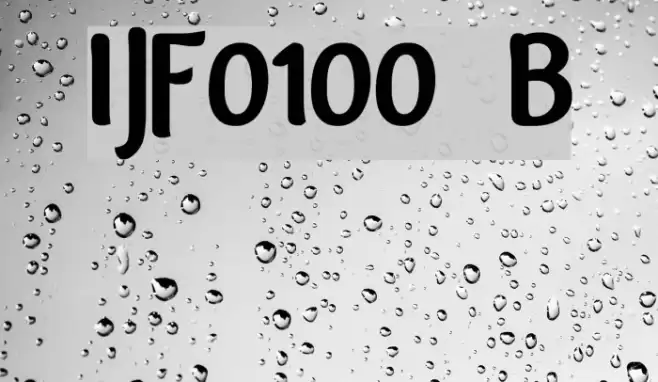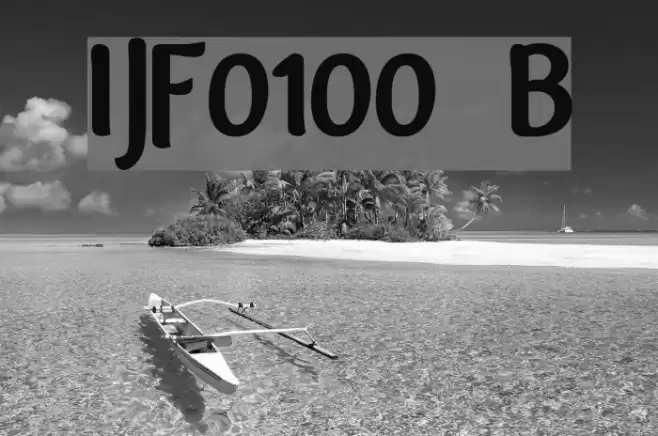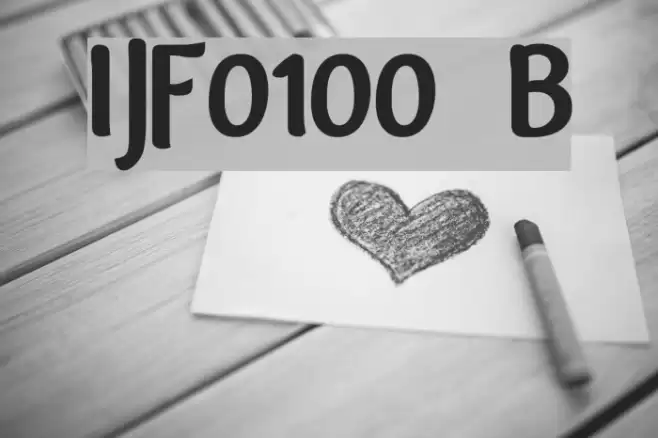
IJF0100 Bold Font
IJF0100 Bold Description
This font features a bold and playful style with rounded edges and a slightly irregular baseline, giving it a hand-drawn appearance. The characters are thick and well-defined, providing excellent readability while maintaining a casual and friendly tone. The uppercase and lowercase letters are distinct, with a consistent stroke width throughout. Numbers and special characters are designed to match the overall style, ensuring a cohesive look across all text elements. This font is versatile and can be used to add a touch of personality to various design projects.
A bold, playful font with rounded edges and a hand-drawn feel from Handwritten fonts.
- Proposed Projects: Ideal for children's books, playful branding, casual invitations, and creative posters.
- Overall Style: Casual